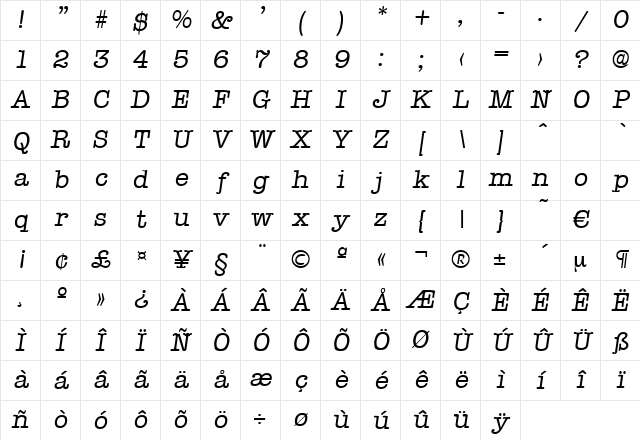
Typewriter-RegularIta Regular
Complete Typewriter-RegularIta Regular glyph index. Displaying only characters natively supported by Typewriter-RegularIta Regular font.
Design Context for Typewriter-RegularIta
Typewriter-RegularIta uses fixed-width spacing throughout, giving it the structured, systematic character associated with coding environments and technical documentation.
Pro Tip: Use Typewriter-RegularIta with slightly increased line-height for extended reading - fixed-width spacing can feel dense in longer passages without extra breathing room.